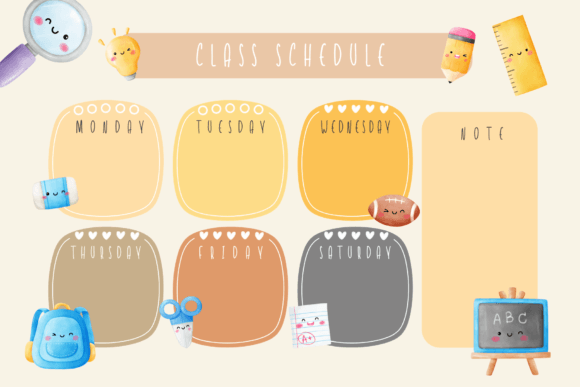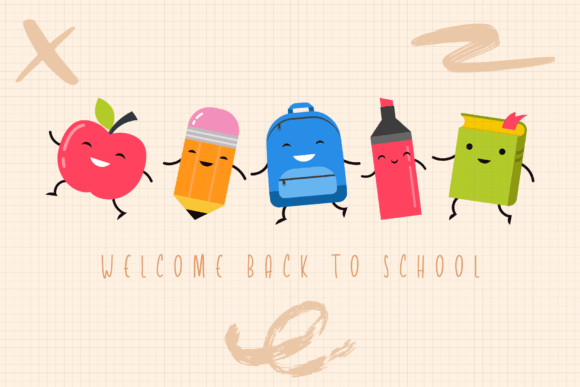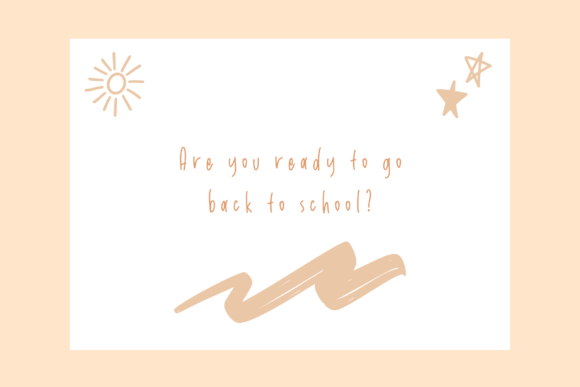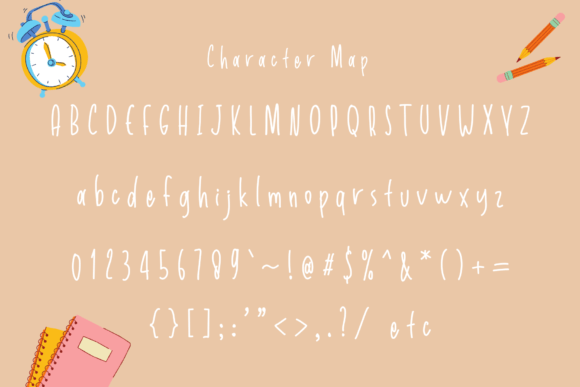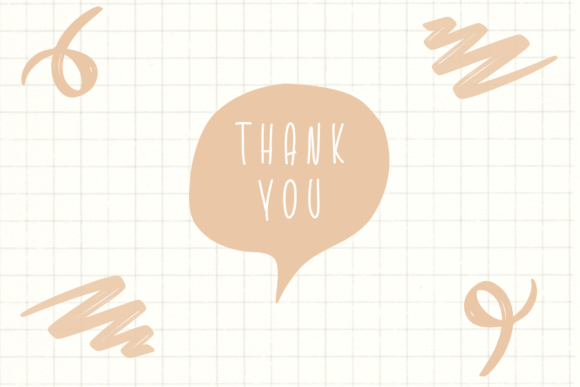
Introduction to Math Magic Font
Introducing Math Magic – an authentic, hand-scripted monoline font that injects a heartwarming, friendly aura into your design projects.
Evocative of joyous back-to-school memories, Math Magic showcases sleek, effortless strokes that mirror the organic charm of human handwriting This versatile font breathes life into numerous design pursuits with its amiable demeanor and fluidity.
Key Features of Math Magic Font